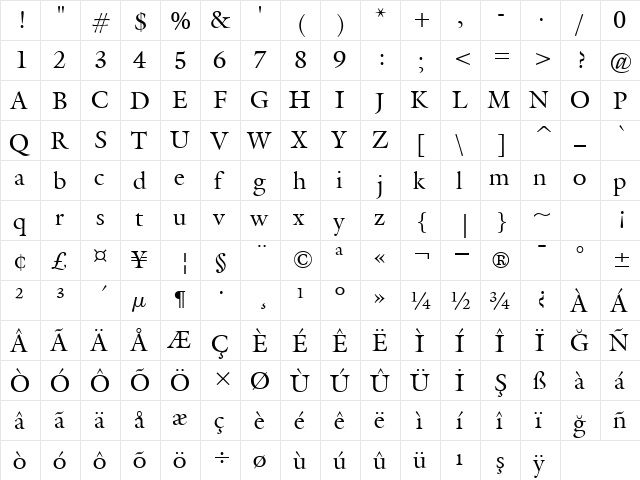
00280 Regular
00280 takes a measured approach to typography — its balanced proportions and neutral character make it a reliable workhorse for both digital and print work.